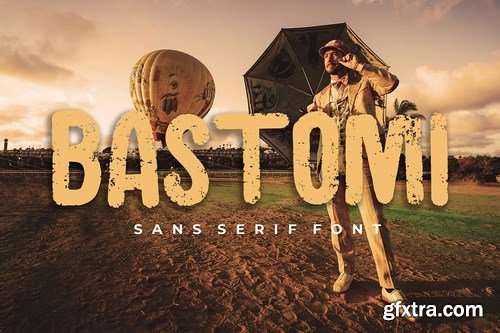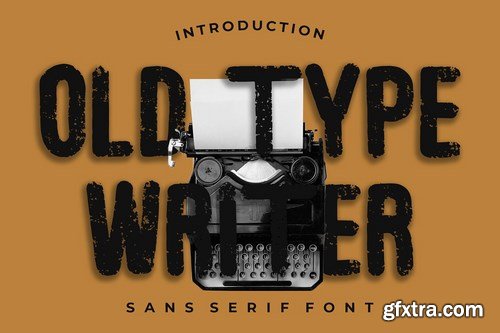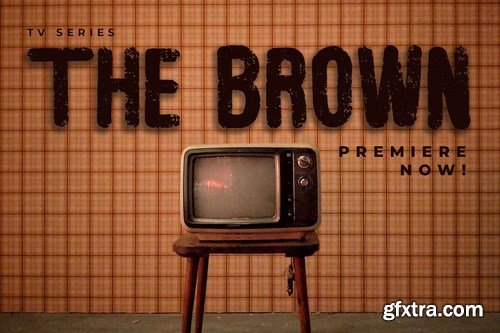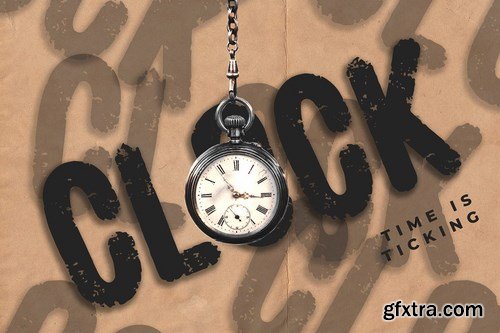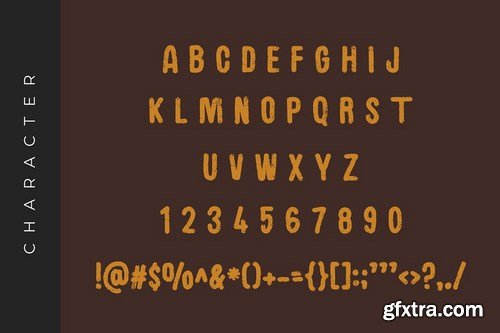
Bastomi is a vintage and oldies style sans serif font that can be used for various purposes such as logos, vintage invitations, t-shirts, letterheads, signage’s, labels, and much more!